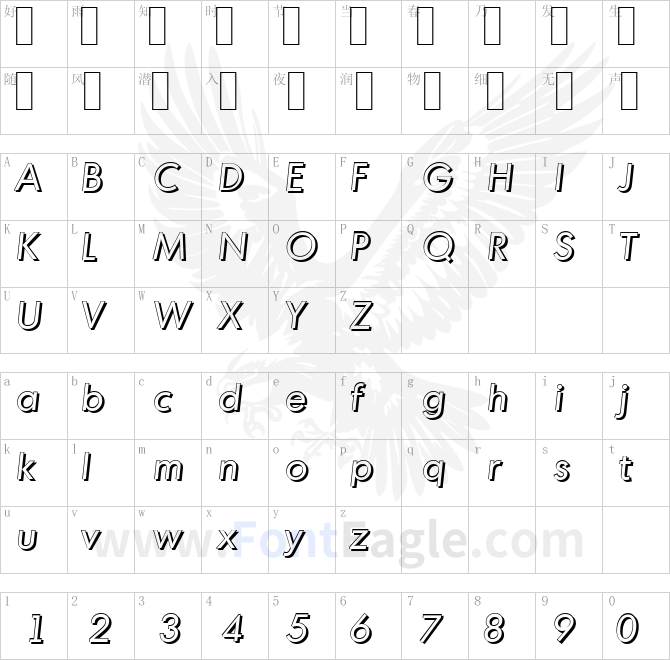
- Font name:MontrealShadow
- Font Subfamily ID:SoftMaker Software GmbH MontrealShadow-Italic
- Font Full Name:MontrealShadow-Italic
- Postscript:MontrealShadowItalic
MontrealShadow-Italic is a great font, widely used in graphic design, single-page menu design, poster design and other fields, and is deeply loved by designers.MontrealShadow-Italic download.